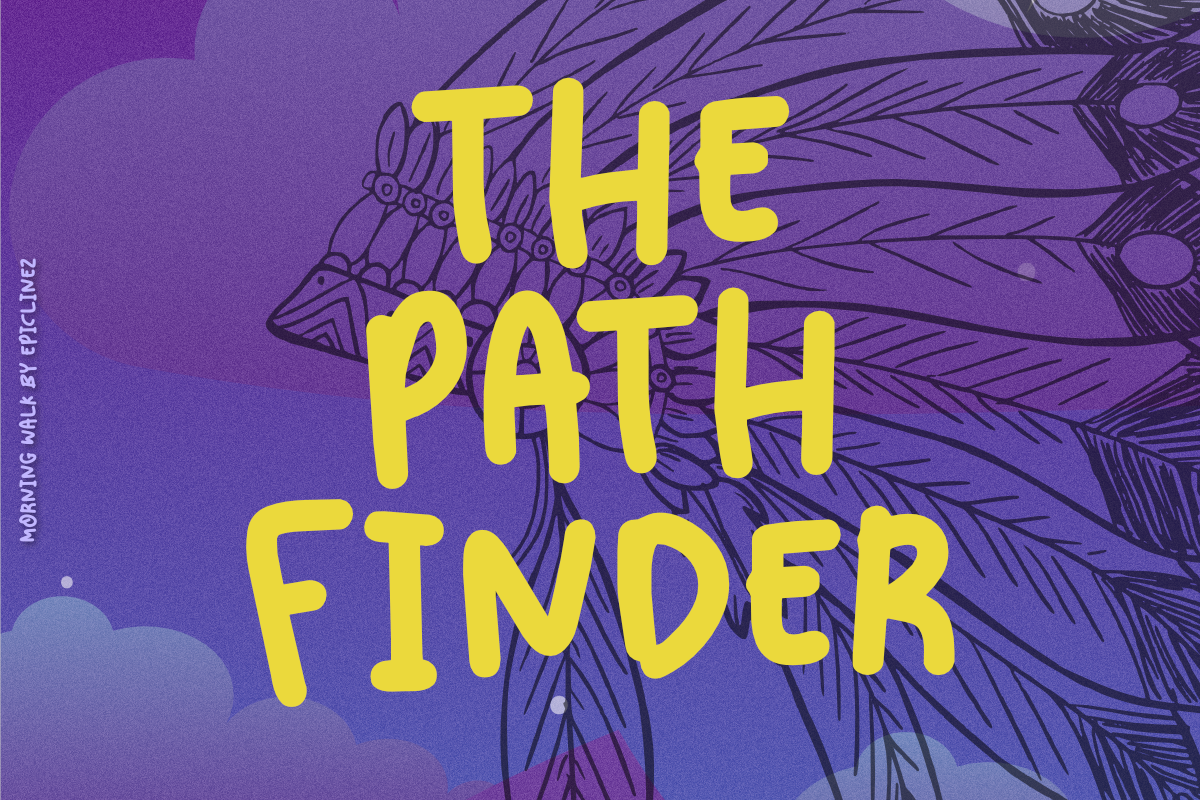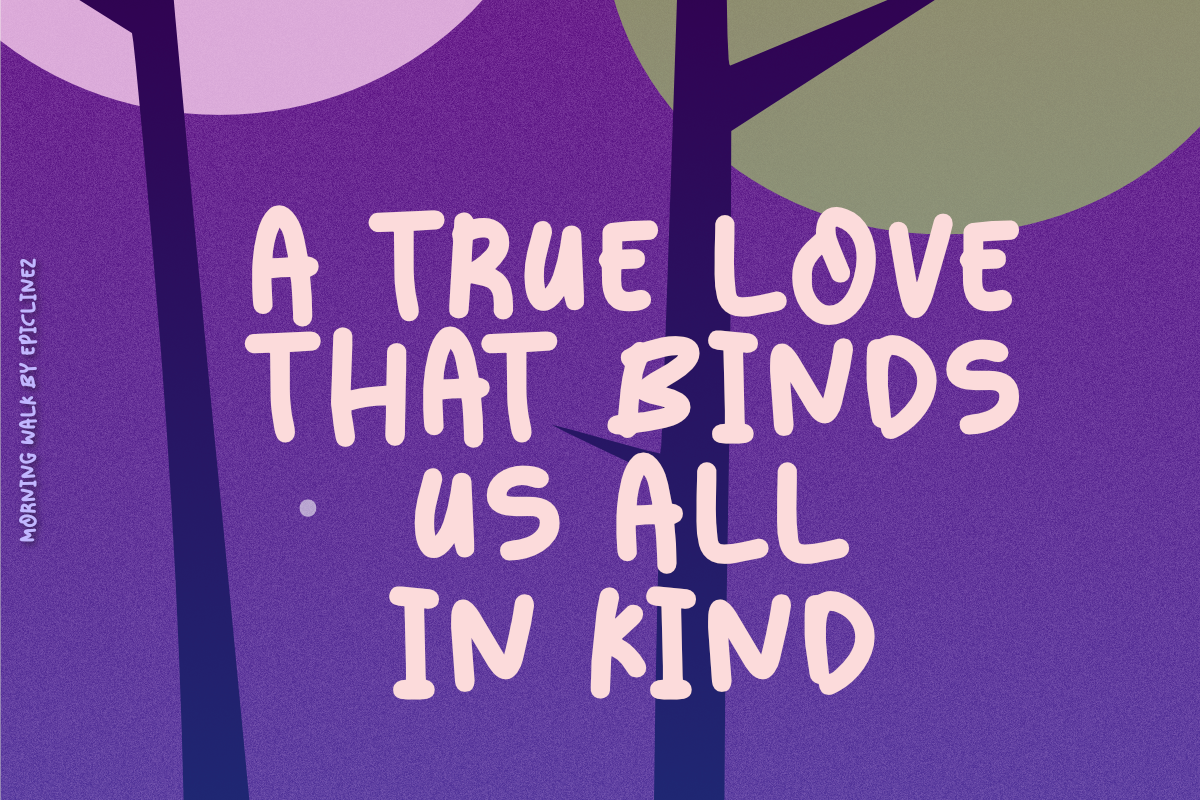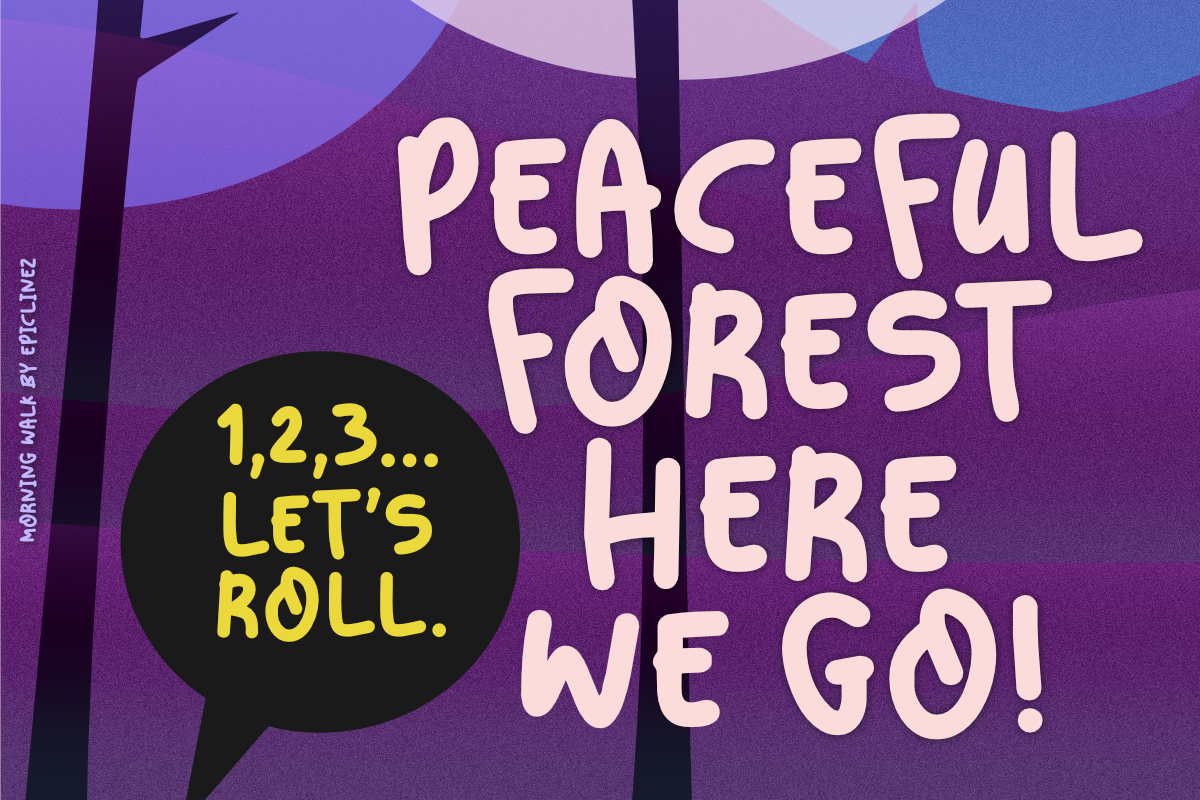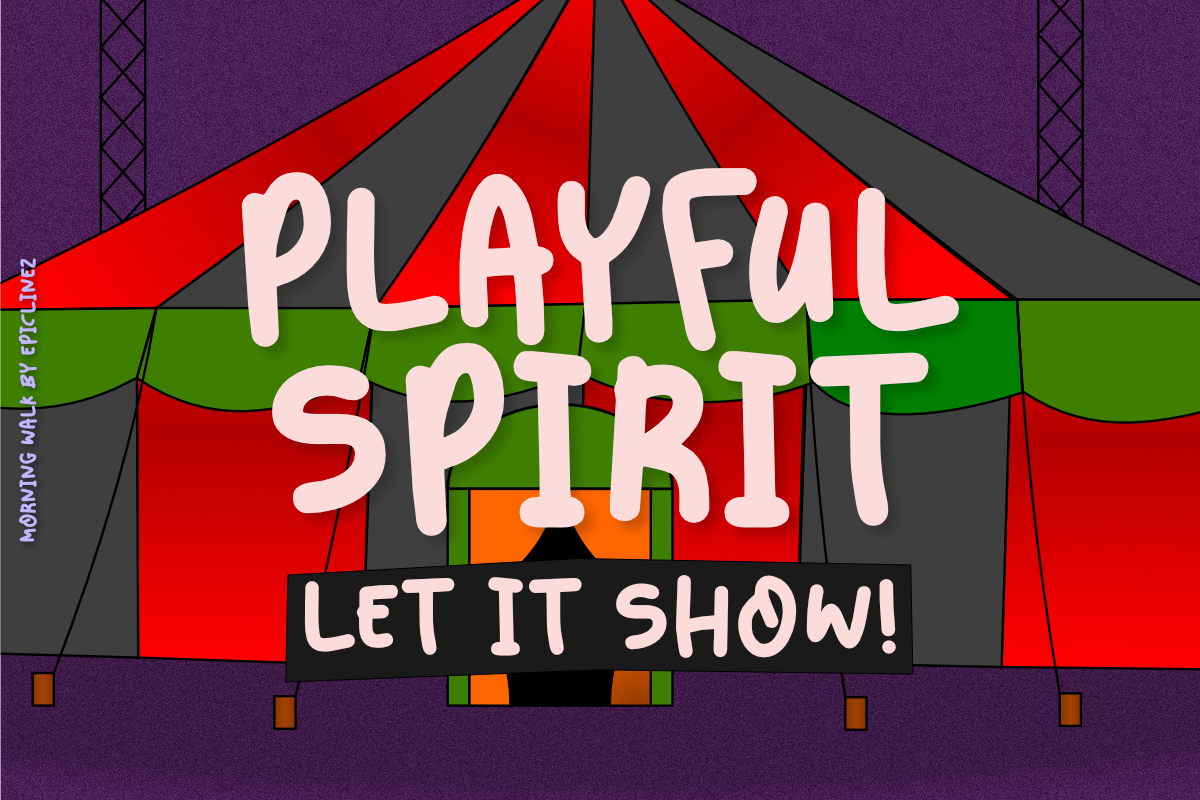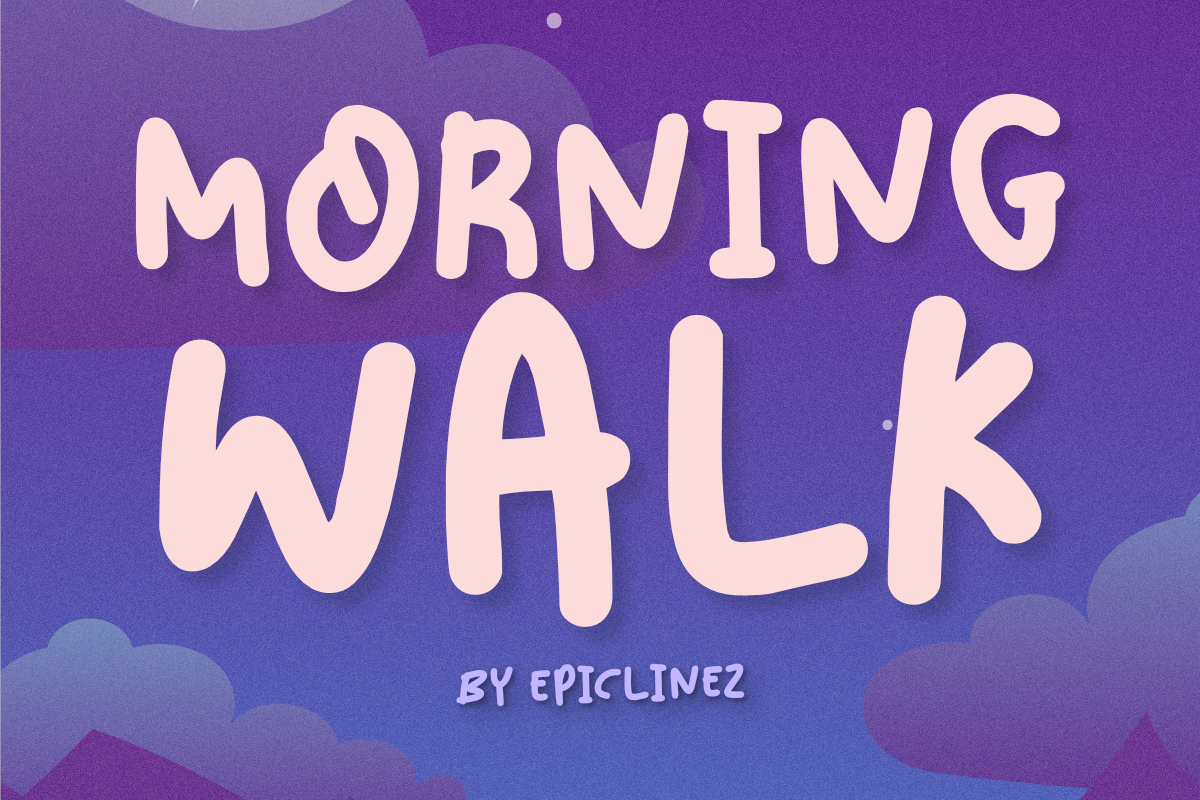
Morning Walk - Fun Font
Get your creative juices flowing with Morning Walk! This playful font suits any project, bringing life and fun with its carefree vibes. Get ready to be inspired and let your ideas run wild with this versatile and easy-to-use font. Upgrade your designs today and add some positive energy to them with Morning Walk!